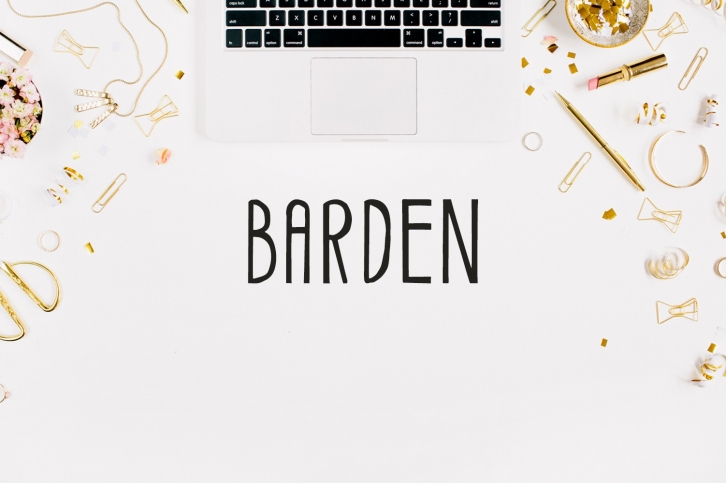
Barden Handmade is a beautiful font that was designed by Creativetacos. It's a great choice for designers and creatives who need such a font. It was released on October 21, 2017 and the file size is 11.80 MB. Barden Handmade may give a more youthful, expressive and casual look to your project. It is a very beautiful, refined, elegant, and high-quality font.